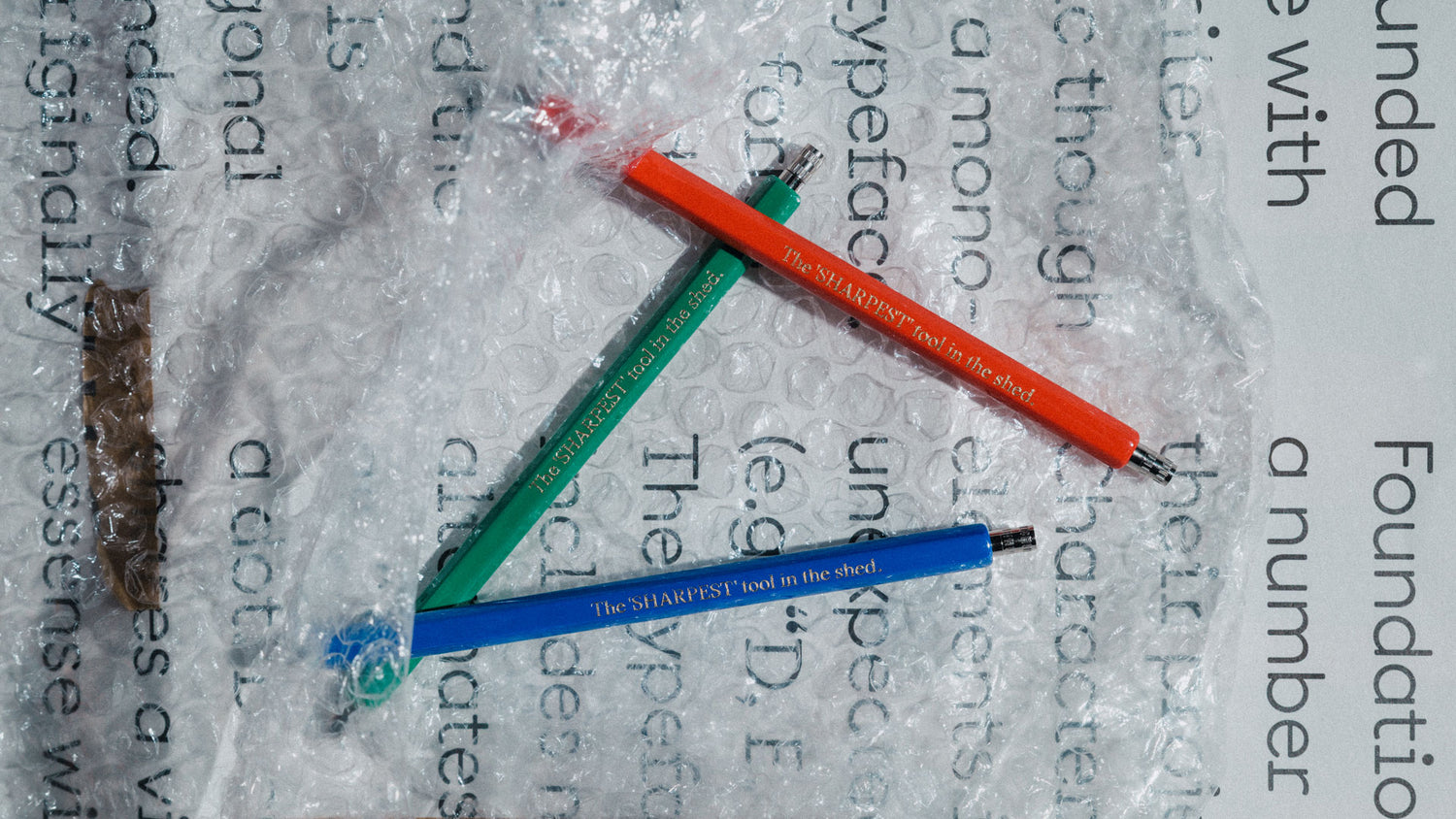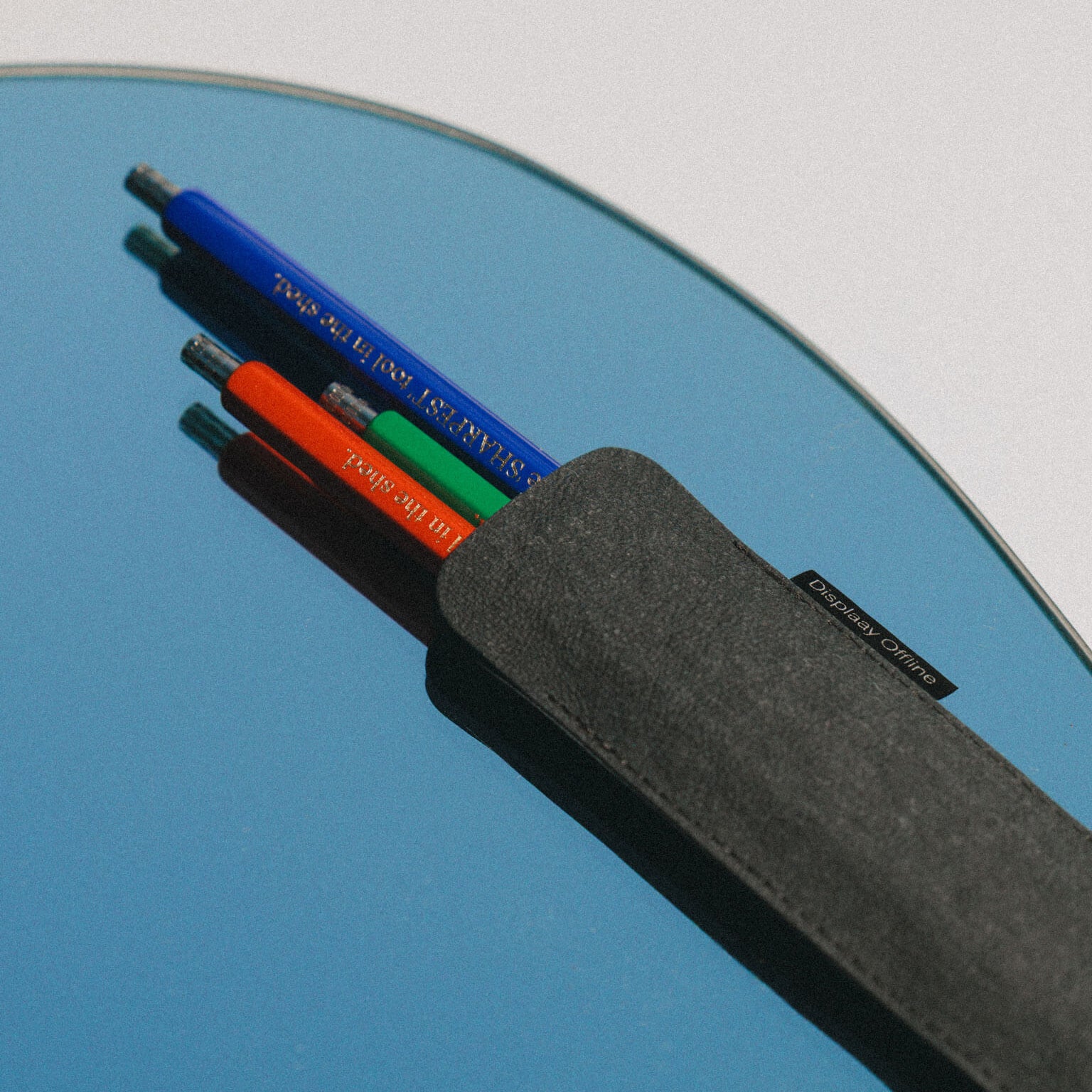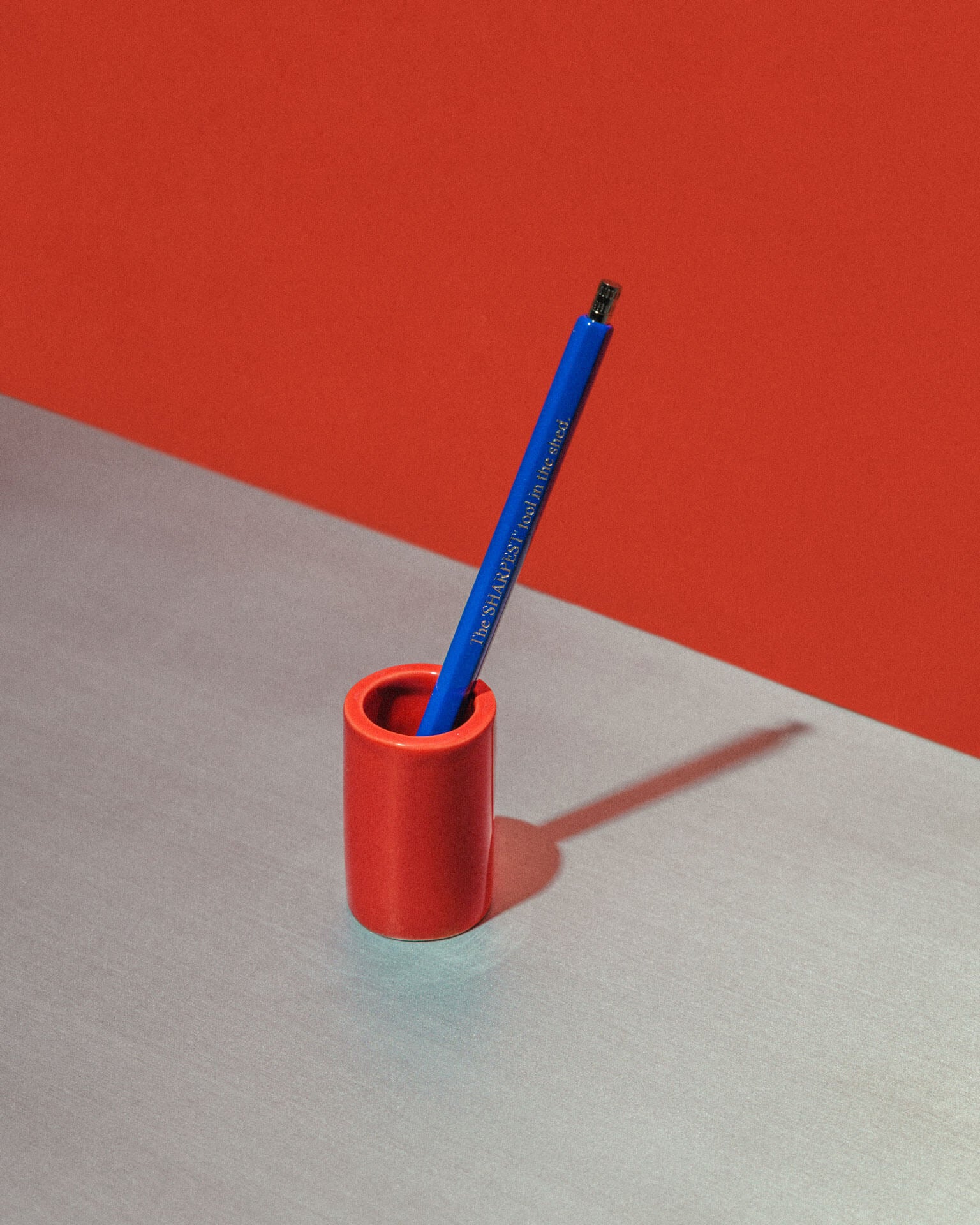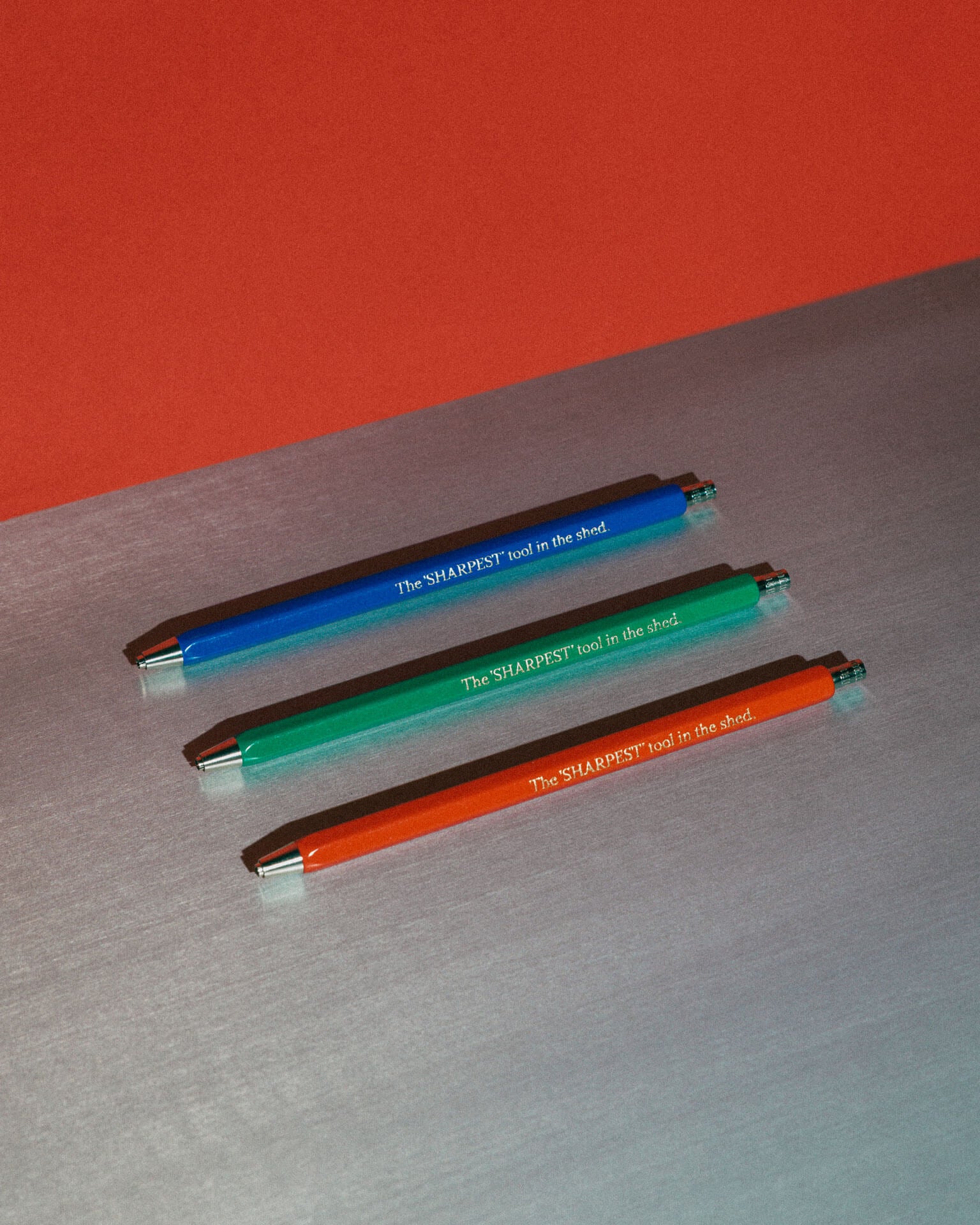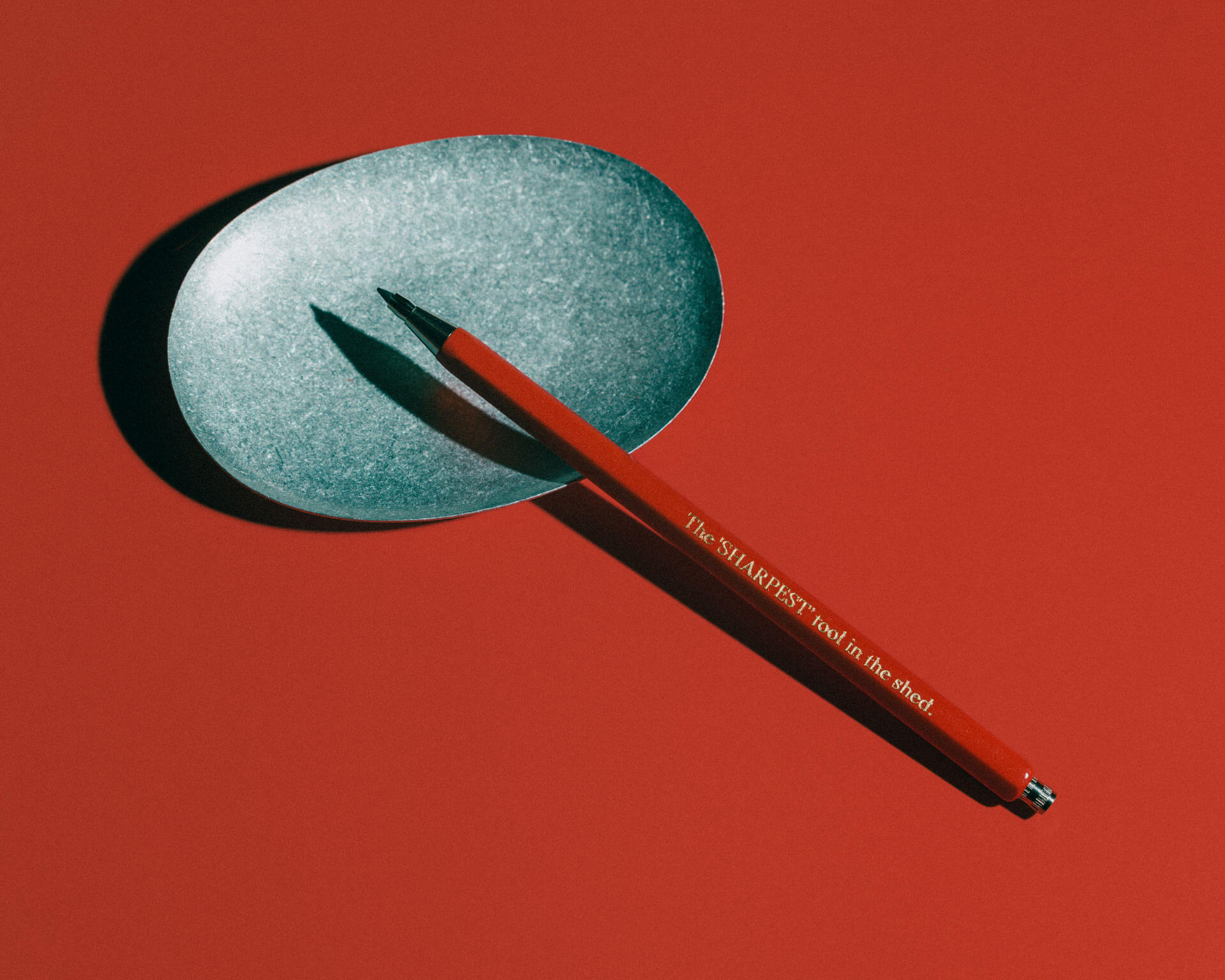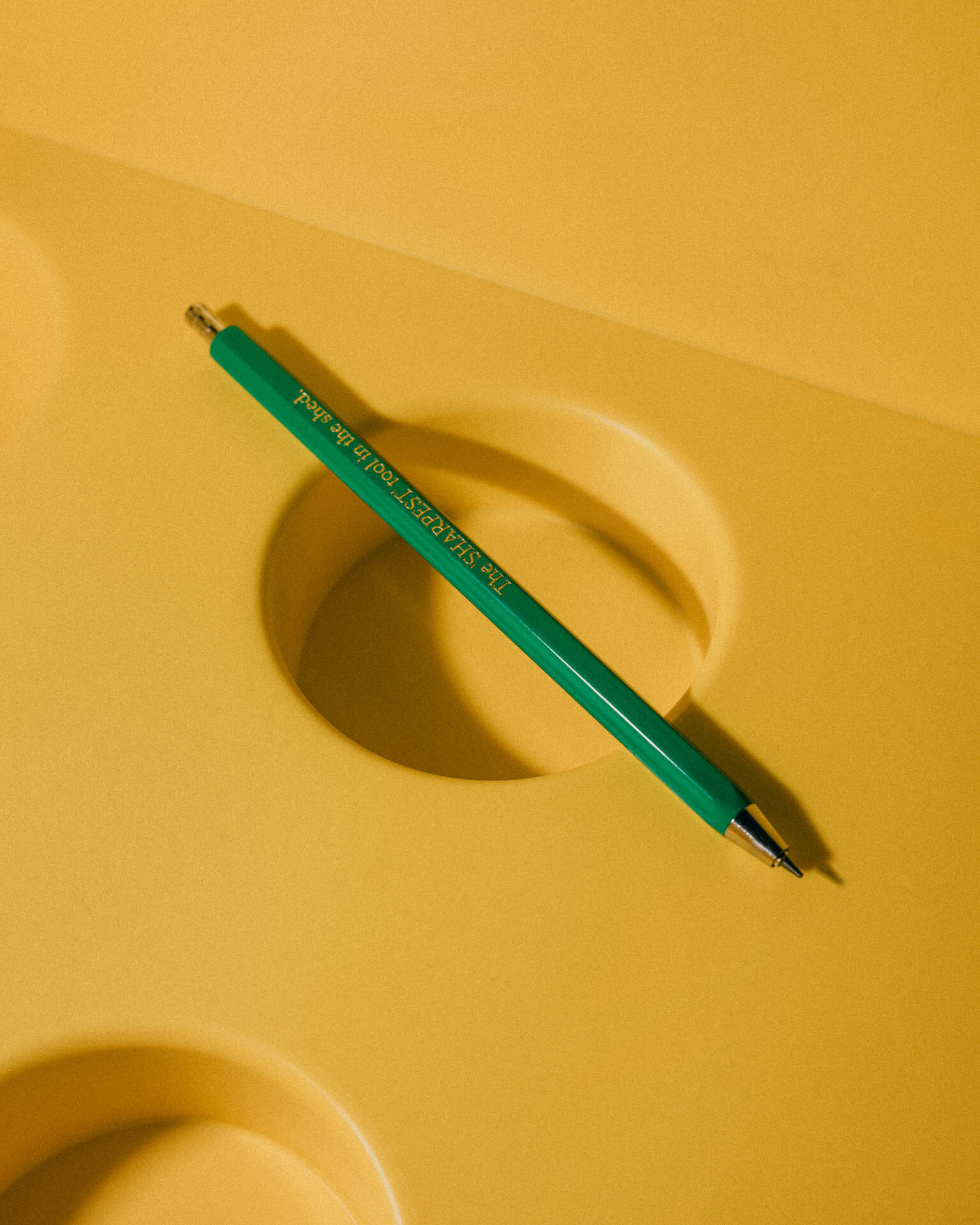
Aguzzo PENCILS
These are certainly the sharpest pencils you’ve ever owned — including the catchphrase written in an even pointier typeface.
Custom-made pencils, created in collaboration with the legendary Czech company KOH-I-NOOR, are widely known as “verzatilka.” This mechanical pencil is made of metal and designed for everyday writing and drawing with a 2 mm refillable graphite lead.
The lead advances by pressing the sharpener button while holding the pencil at a slight angle — this opens the clutch and allows you to adjust the lead length as needed. To sharpen the lead, simply unscrew the button, which contains a built-in sharpener. The pencil features a lacquered hexagonal barrel with embossed detailing.
Font in use: Aguzzo
Graphic design: Andrea Vacovská